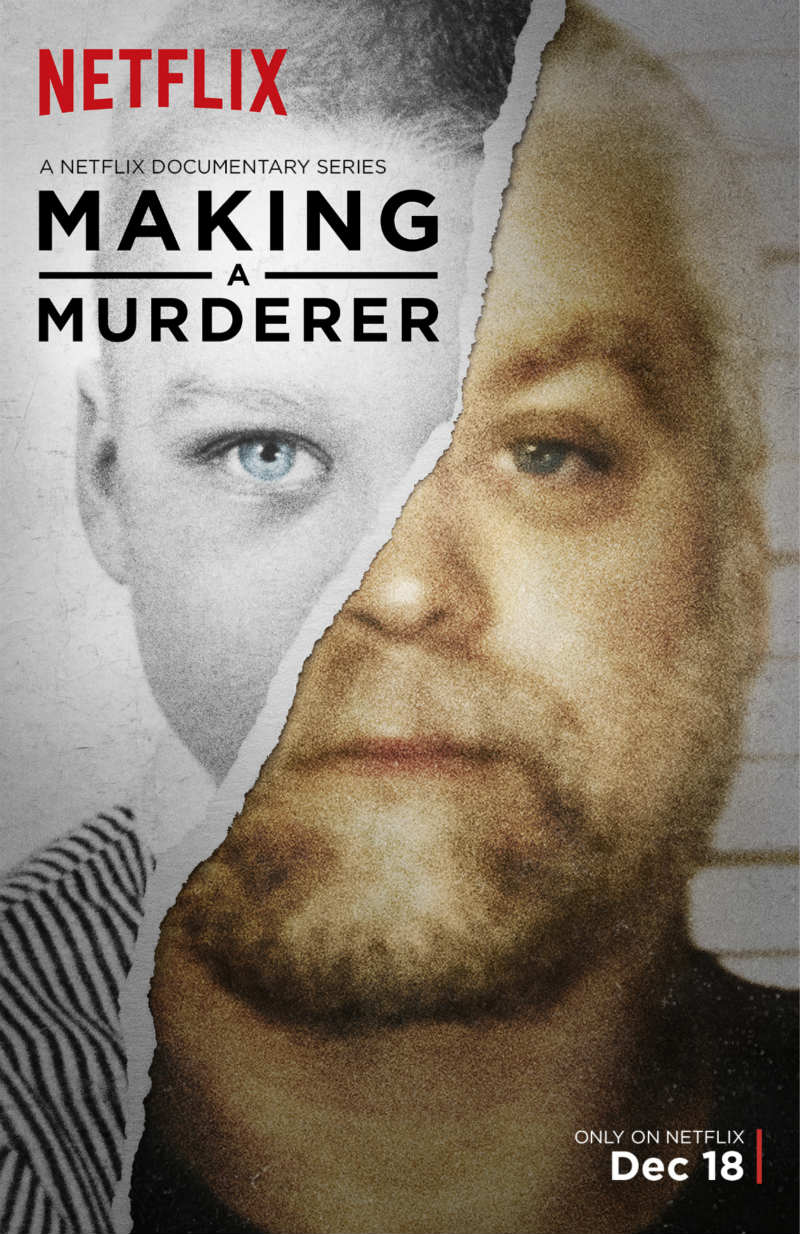
Making A Murderer Font
CrimeMaking a Murderer is a true crime web series that explores the controversial case of Steven Avery, who was convicted of murder despite claiming his innocence.
The title of the series uses the Gotham Bold font, designed by American type designer Tobias Frere-Jones in 2000. This popular geometric sans-serif font can be previewed and purchased here.